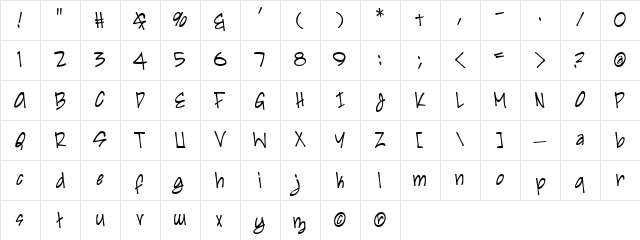
Irezumi Regular Free Font
Irezumi Regular
Irezumi Family
Complete Irezumi Regular glyph index. Displaying only characters natively supported by Irezumi Regular font.
Design Context for Irezumi
Irezumi is a composed and adaptable typeface that performs quietly and consistently across a wide range of design contexts.